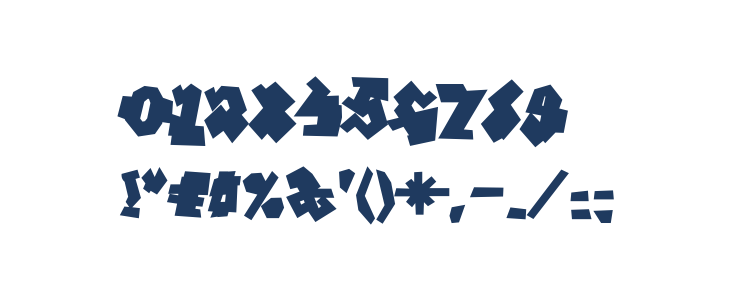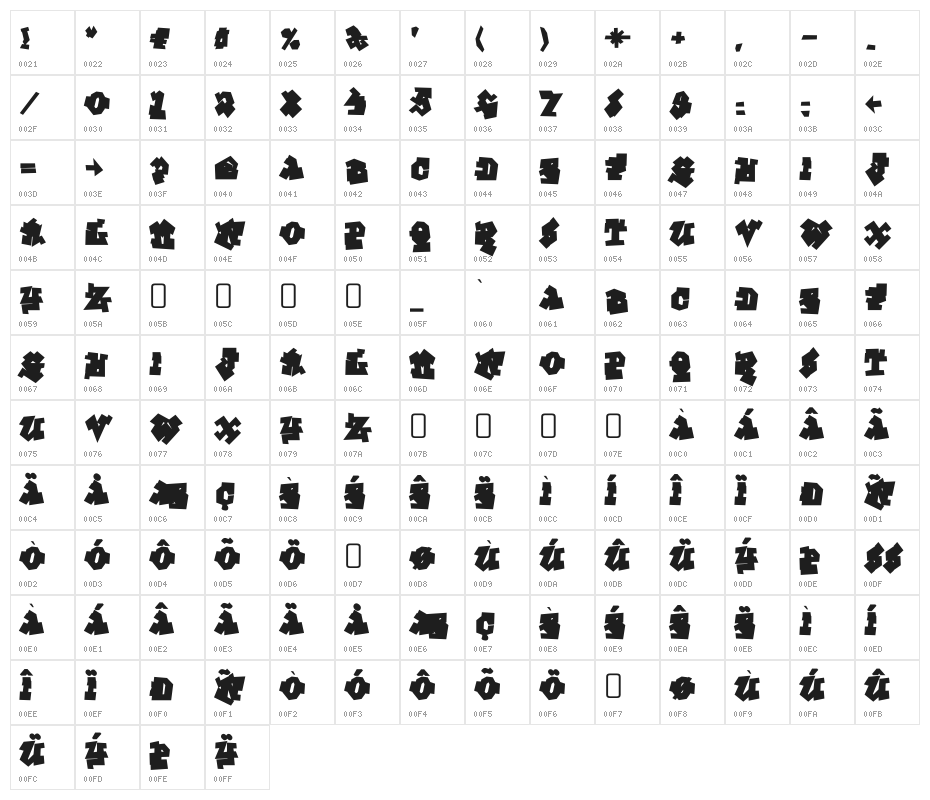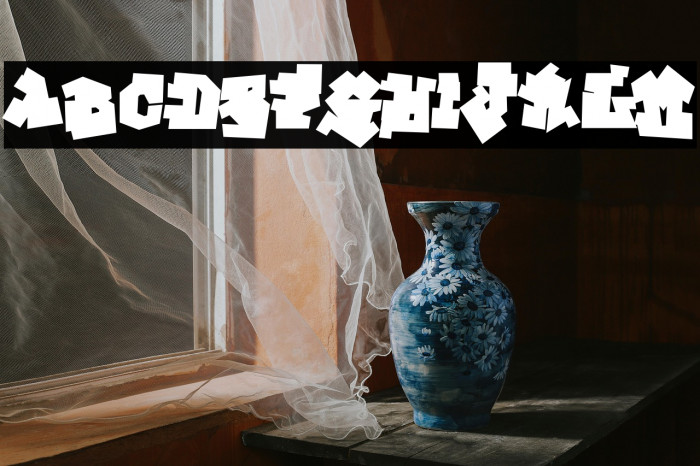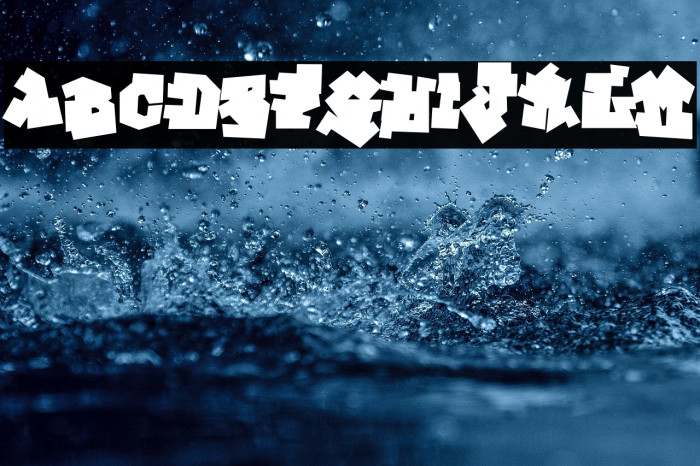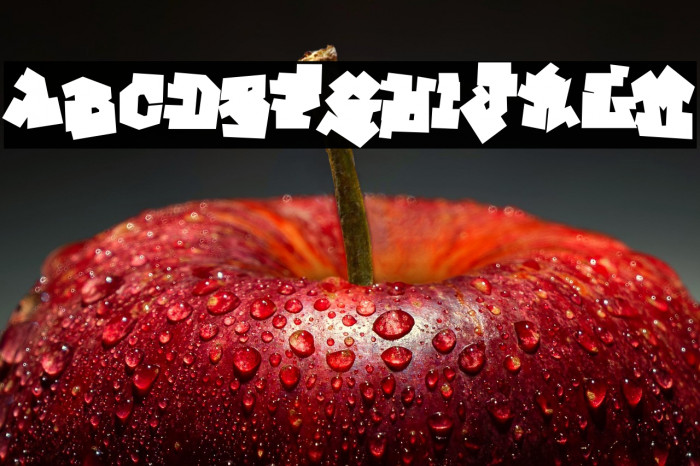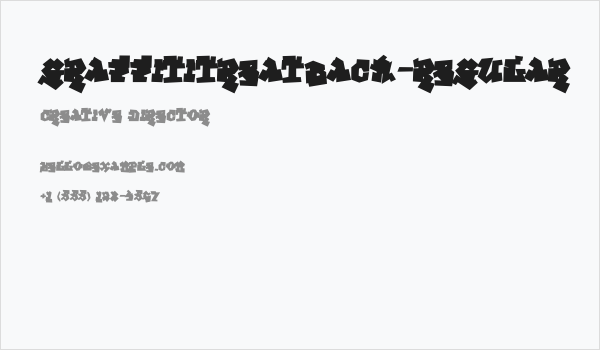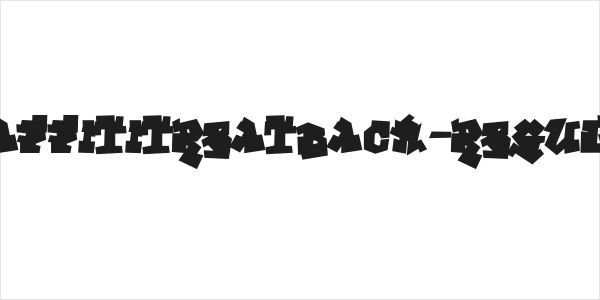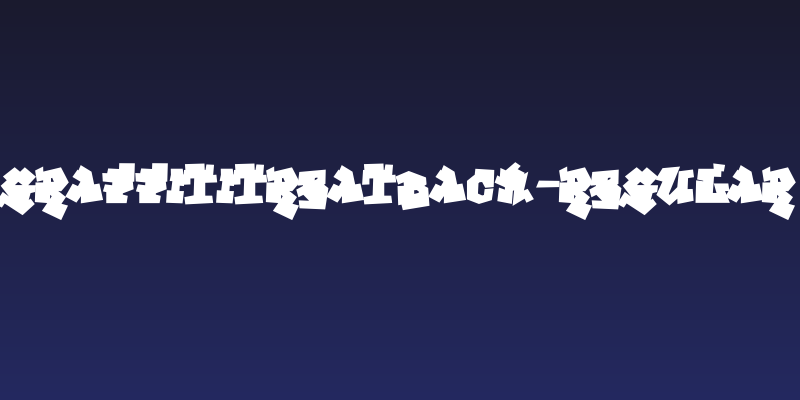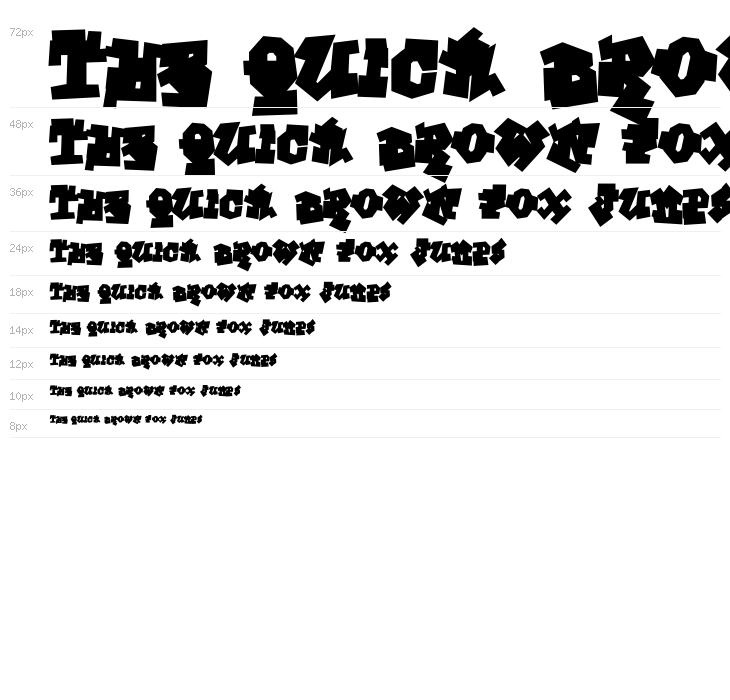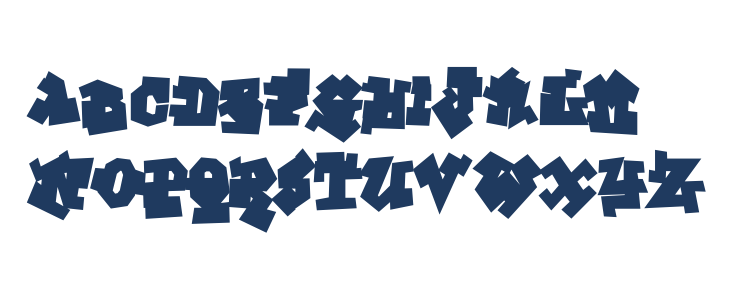
GraffitiTreatBack-Regular Font
GraffitiTreatBack-Regular Description
This font features a bold, graffiti-inspired style with angular and blocky letterforms. Each character is designed with a sense of movement and energy, reflecting the dynamic nature of street art. The letters are tightly spaced, creating a compact and impactful appearance. The font's high contrast between thick and thin strokes adds to its striking visual appeal. Its unique and edgy design makes it suitable for projects that require a strong urban or rebellious aesthetic.
| Overall Style | Urban, Edgy, Dynamic |
| Proposed Projects | Ideal for street art designs, urban-themed posters, music album covers, and edgy branding projects. |